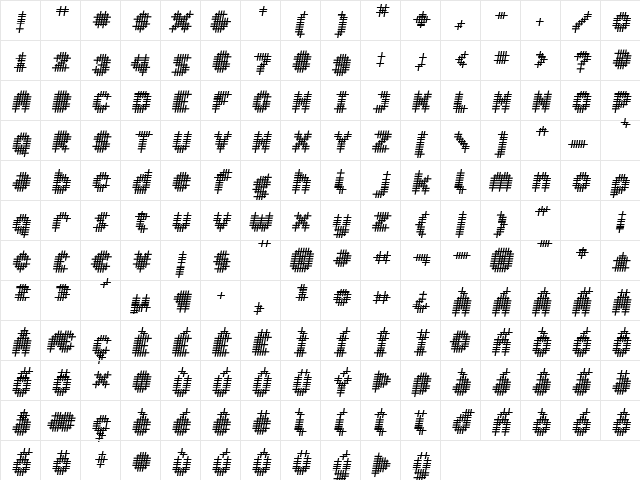
Overcross BoldOblique
Style: BoldOblique
Foundry: YouWorkForThem
Designer: Michael Cina
Design Context for Overcross
Overcross is a composed and adaptable typeface that performs quietly and consistently across a wide range of design contexts. The slanted form adds forward momentum and visual energy. Its bold stroke weight gives it real presence on the page.